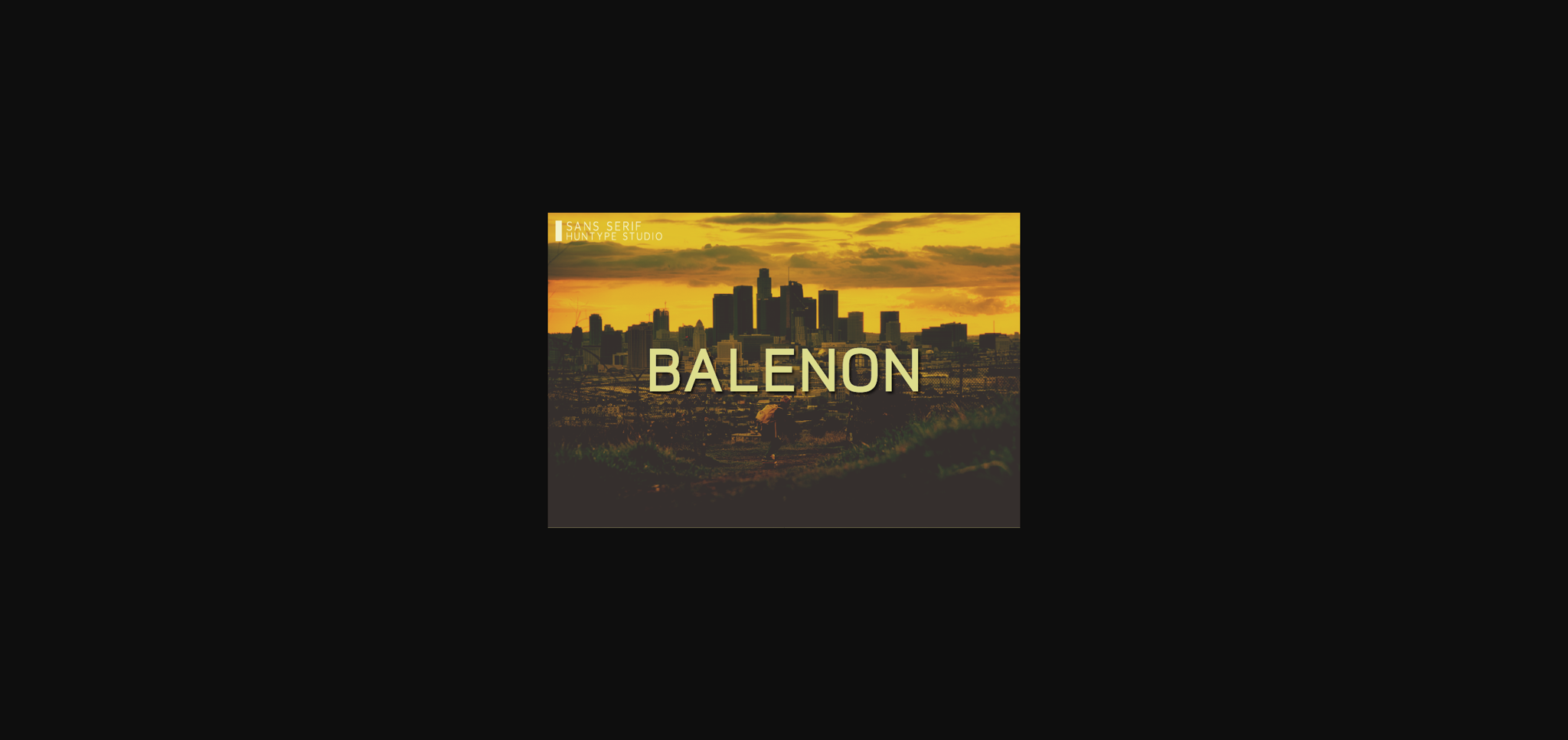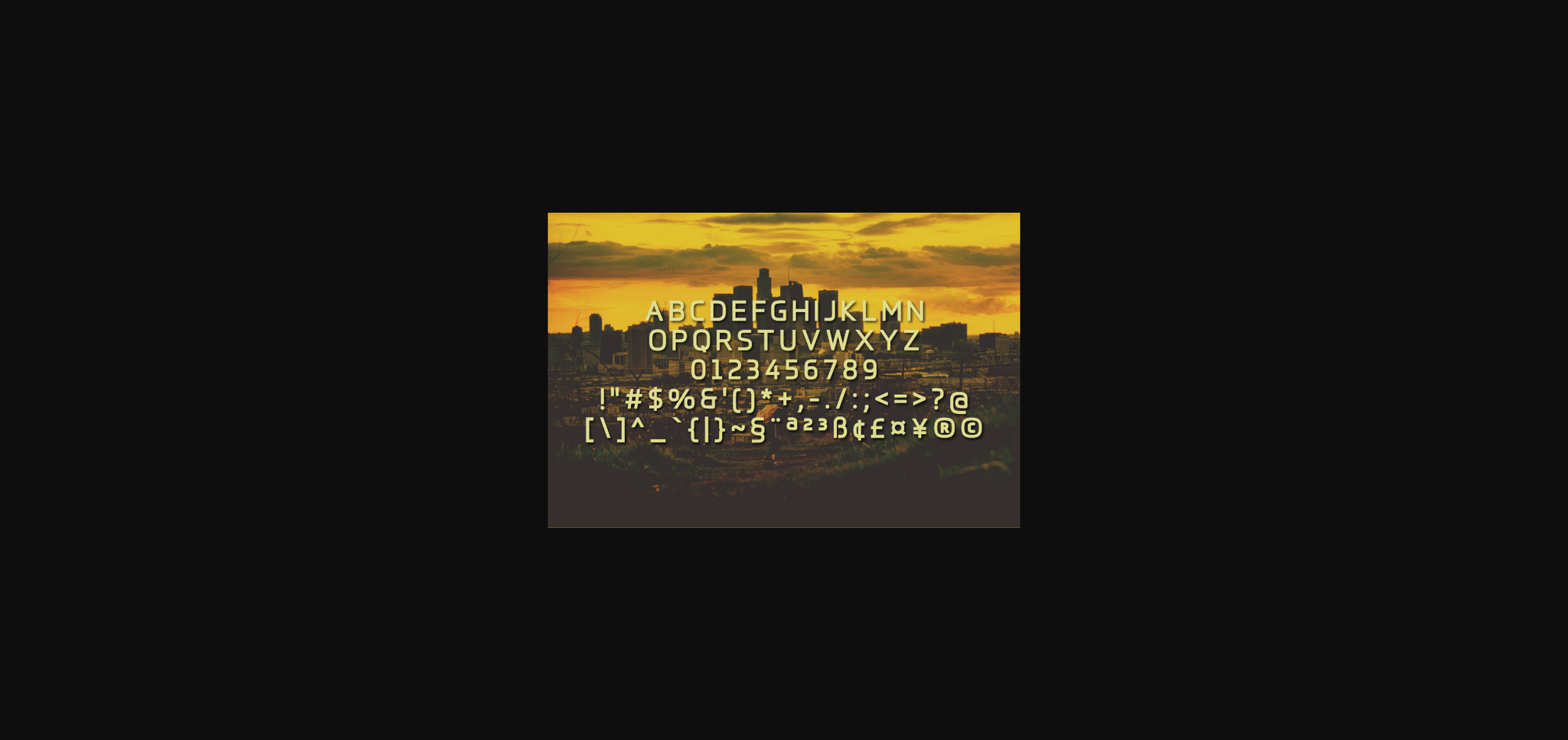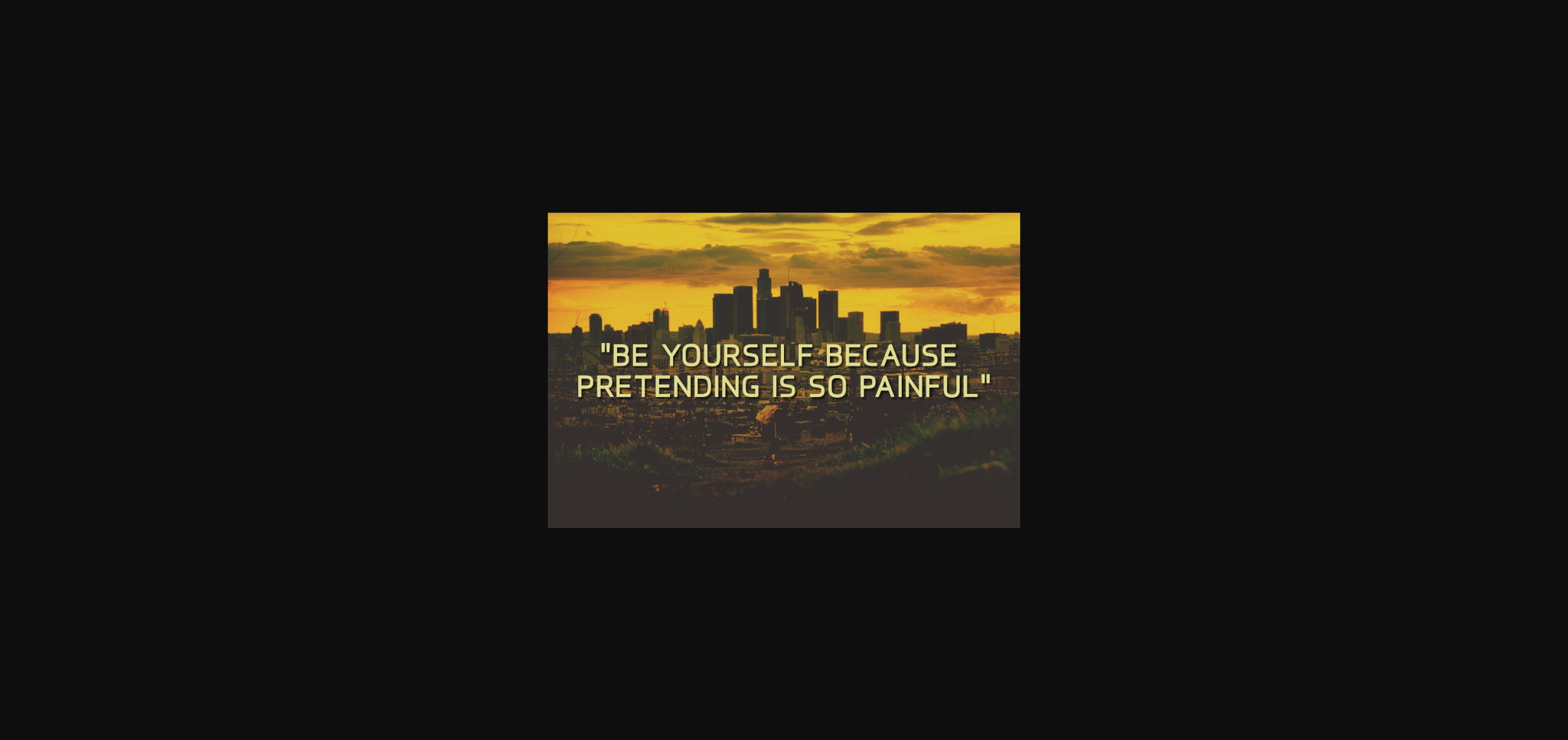
About Balenon Font
Balenon is a minimal and neat sans serif font. It can easily be matched to an incredibly large set of projects, so add it to your creative ideas and notice how it makes them stand out!